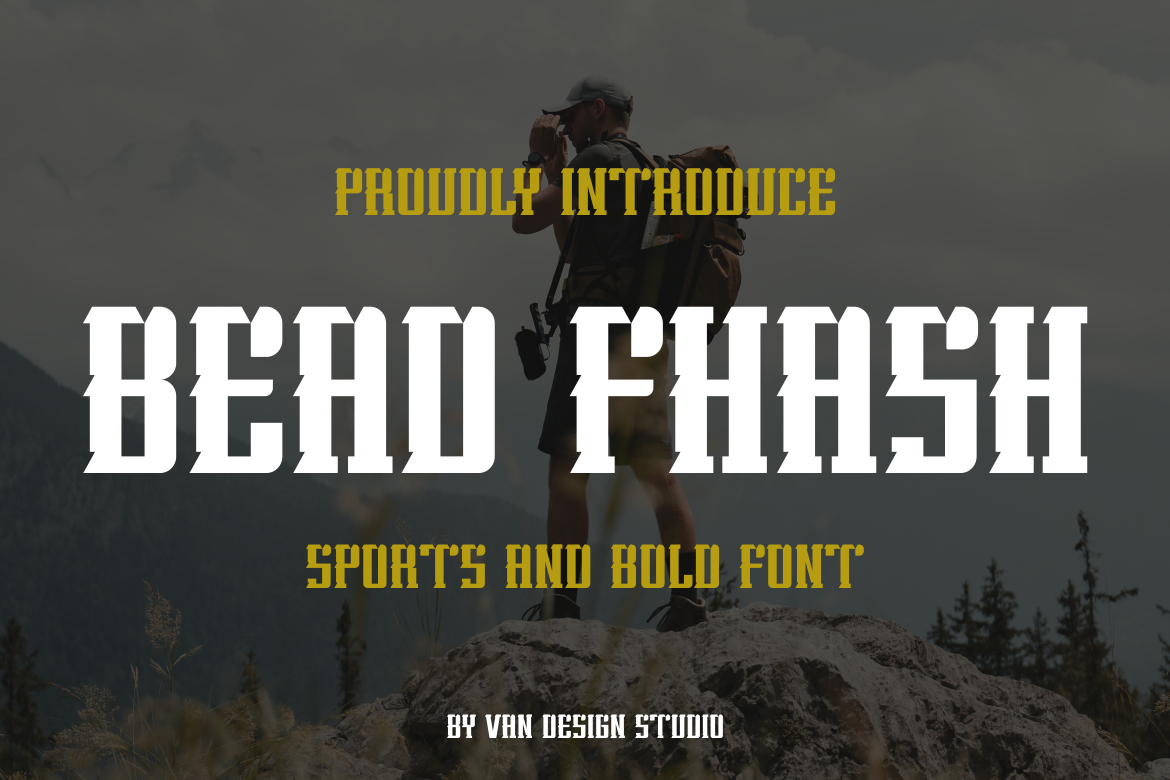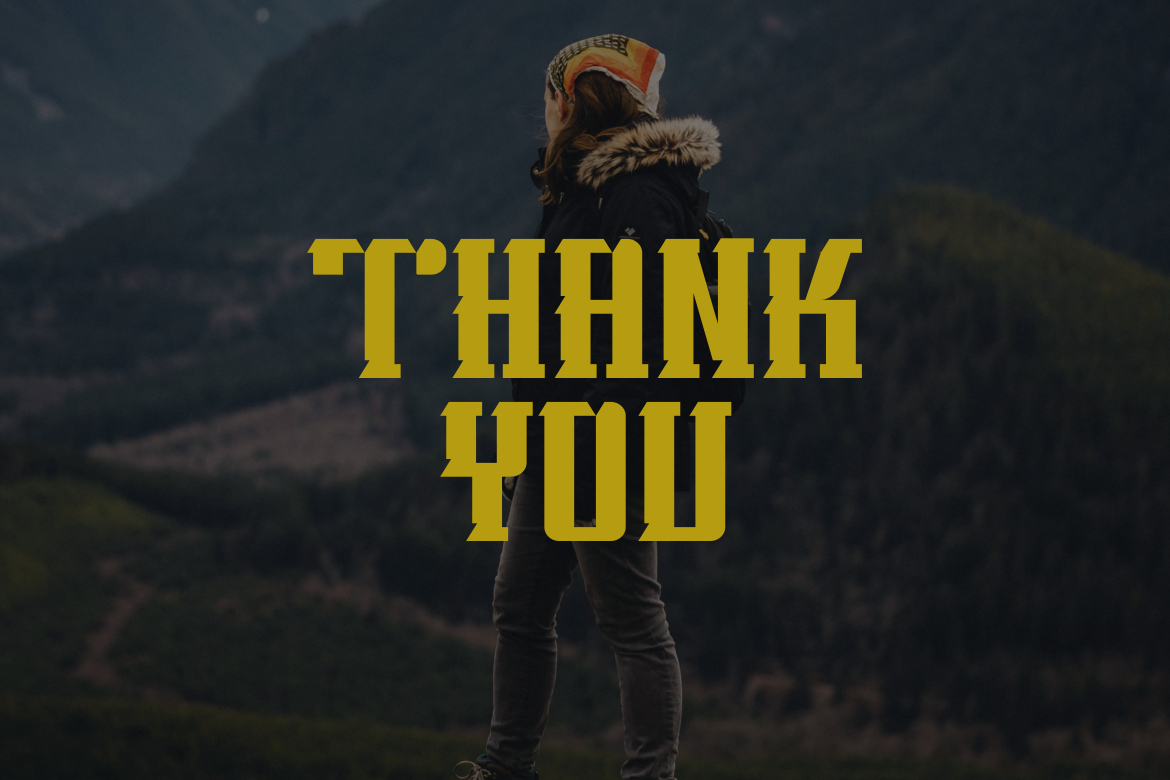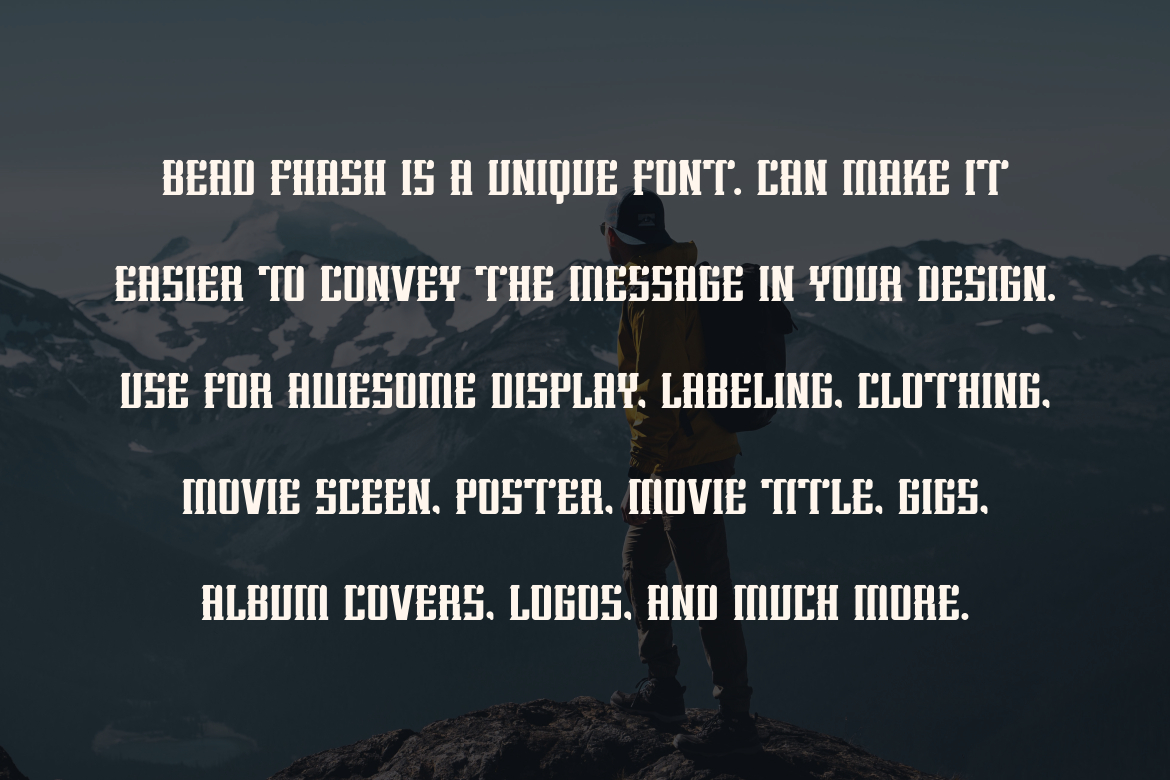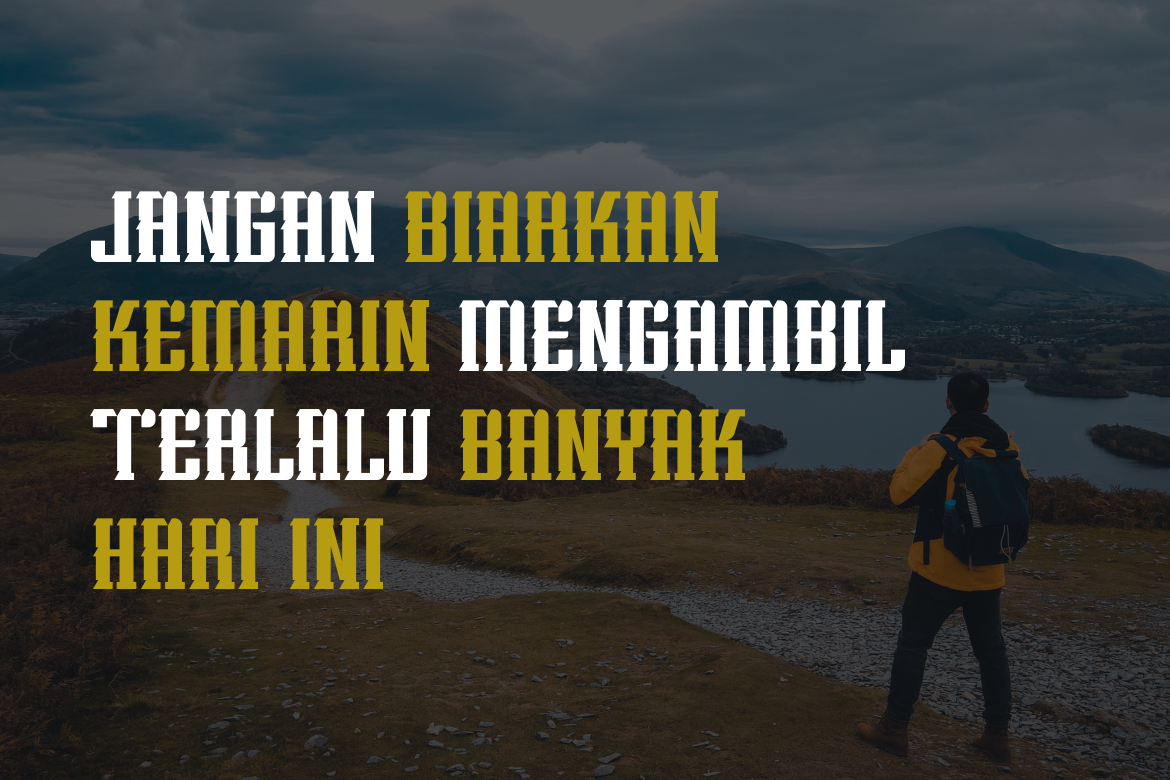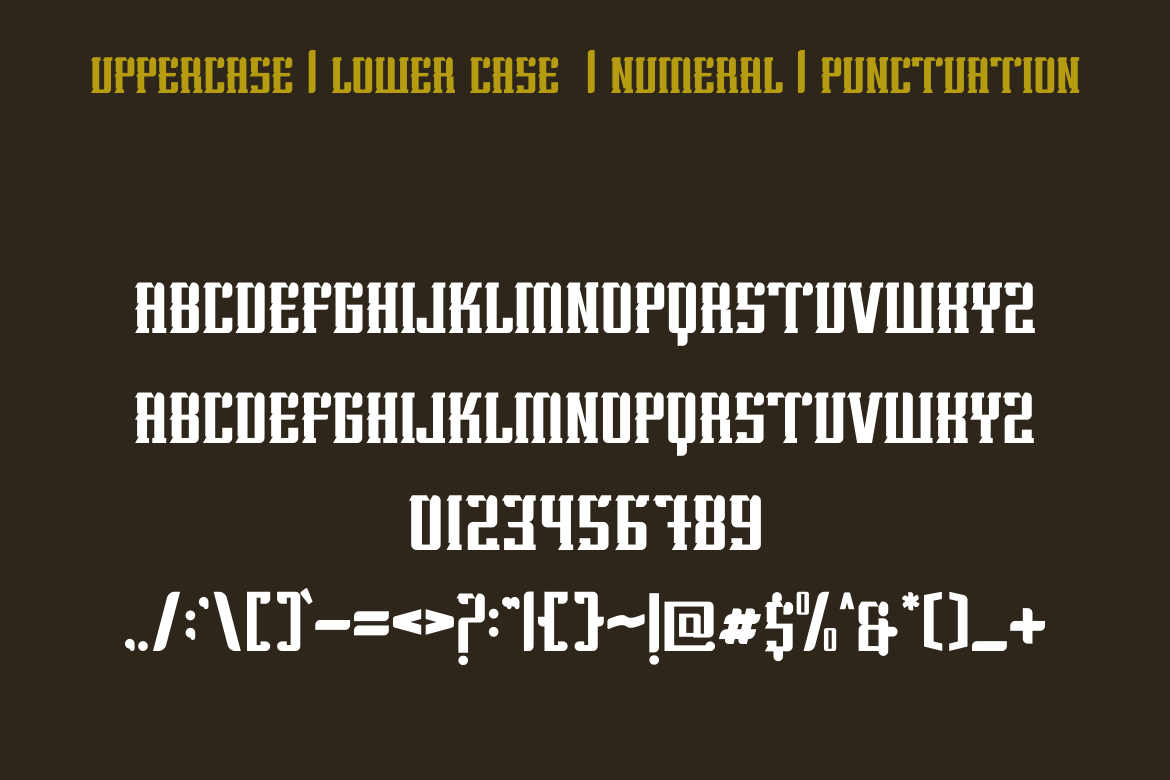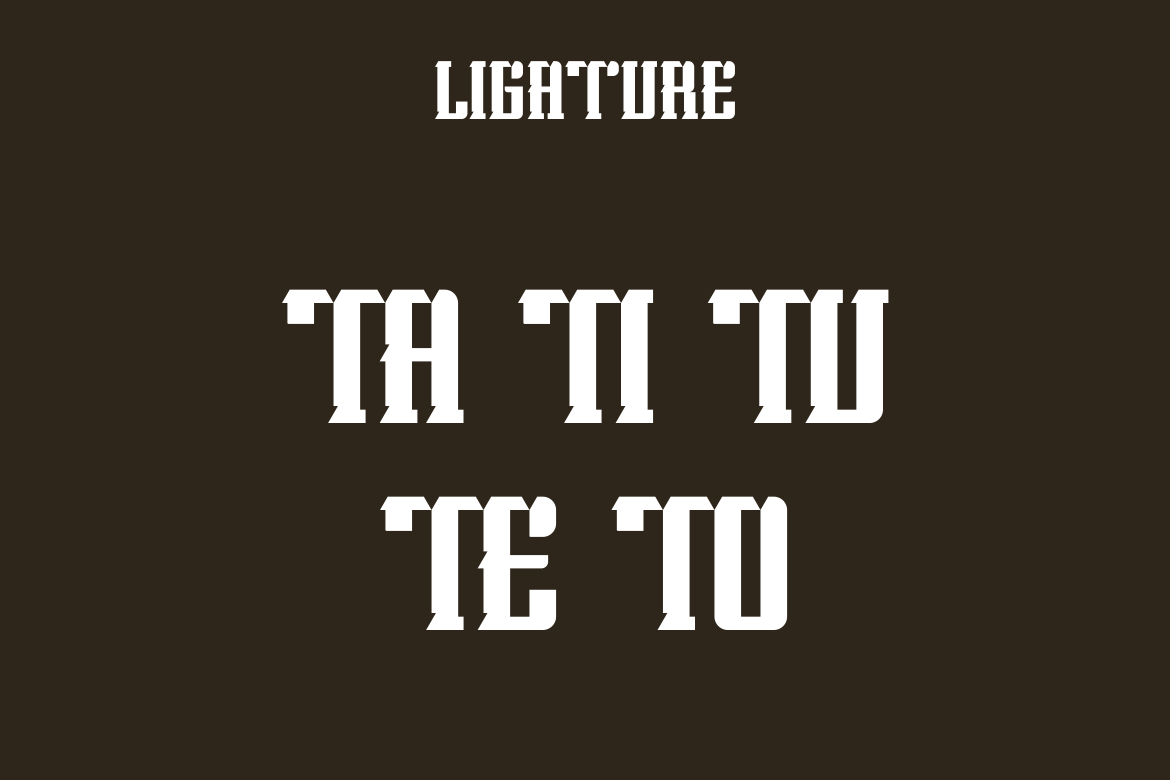
Bead Fhash Font
About Bead Fhash Font
Bead Fhash is an incredibly cool and unique blackletter font. It has a modern yet whimsical style and it will undoubtedly immerse your designs into a magical world.